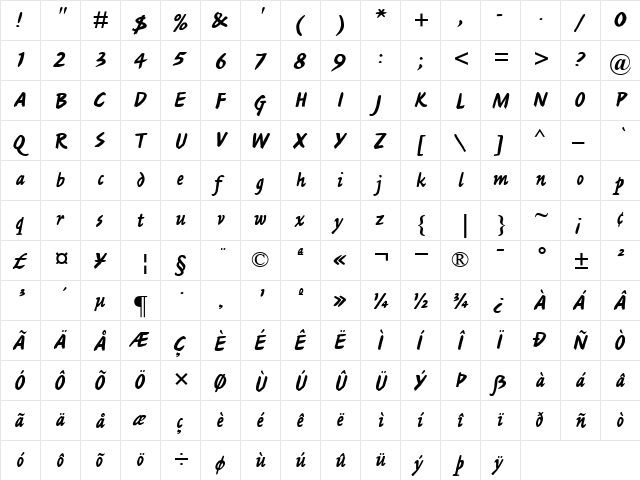
AshleyScriptMT RomanItalic
Design Context for AshleyScriptMT Typeface
AshleyScriptMT brings a calligraphic fluidity to the page — its connecting strokes and expressive curves give it an unmistakably human quality.
Font Pairing: Combine AshleyScriptMT with a simple geometric sans for maximum contrast — the tension between flowing curves and clean structure is a classic typographic pairing.
Pro Tip: Pair AshleyScriptMT with a clean sans-serif for supporting text. The contrast between fluid script and geometric structure creates an elegant typographic hierarchy.